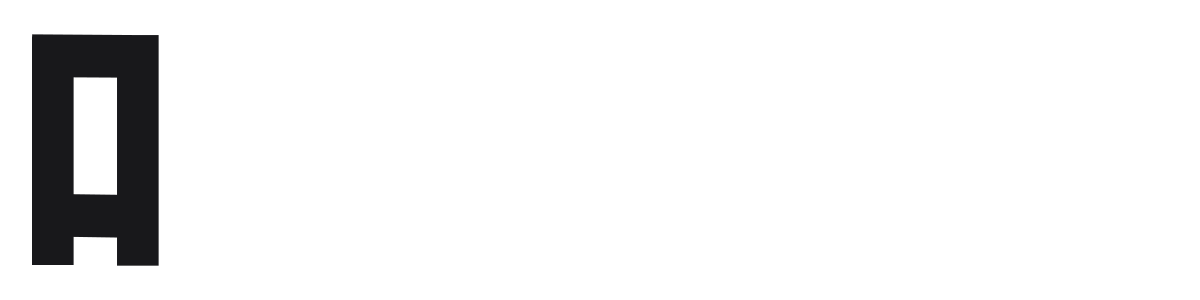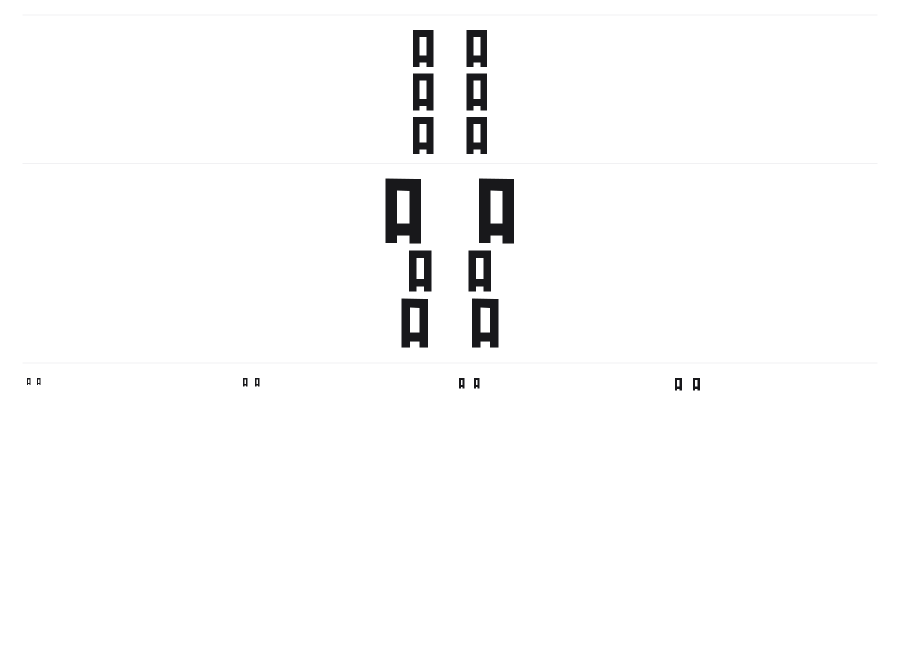
Minirus
by The Docallisme - Amry Al Mursalaat · Website
Minirus is a heavy geometric stencil font built on a strict rectangular grid with bold, blocky forms and characteristic stencil cuts through the counters. The construction is uncompromisingly blunt, giving it a raw, industrial presence at large sizes. It suits headlines, posters, and identity work where weight and edge are the point.